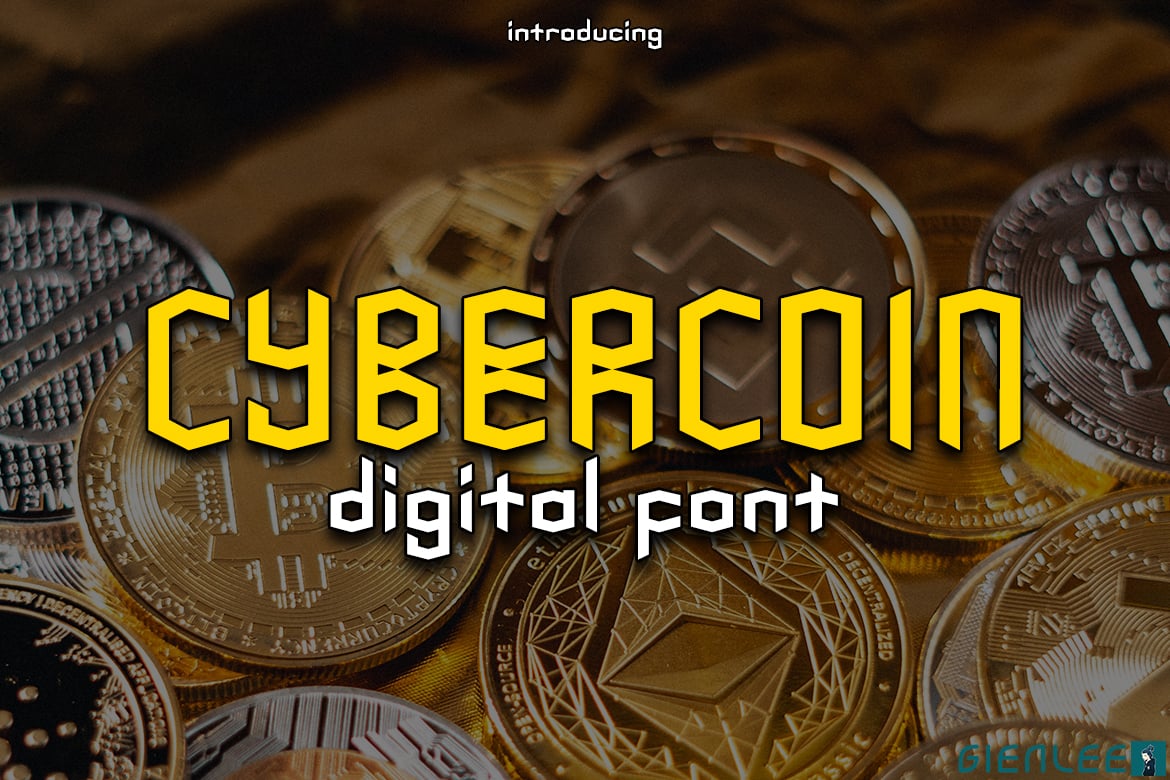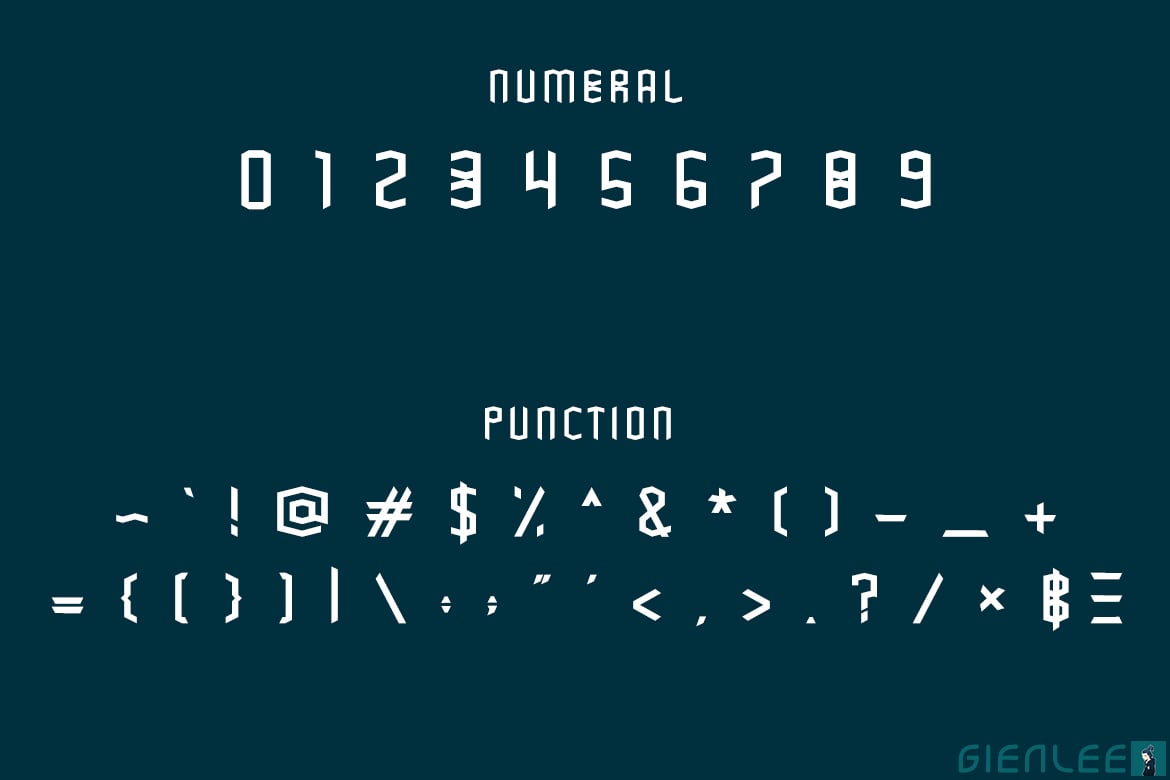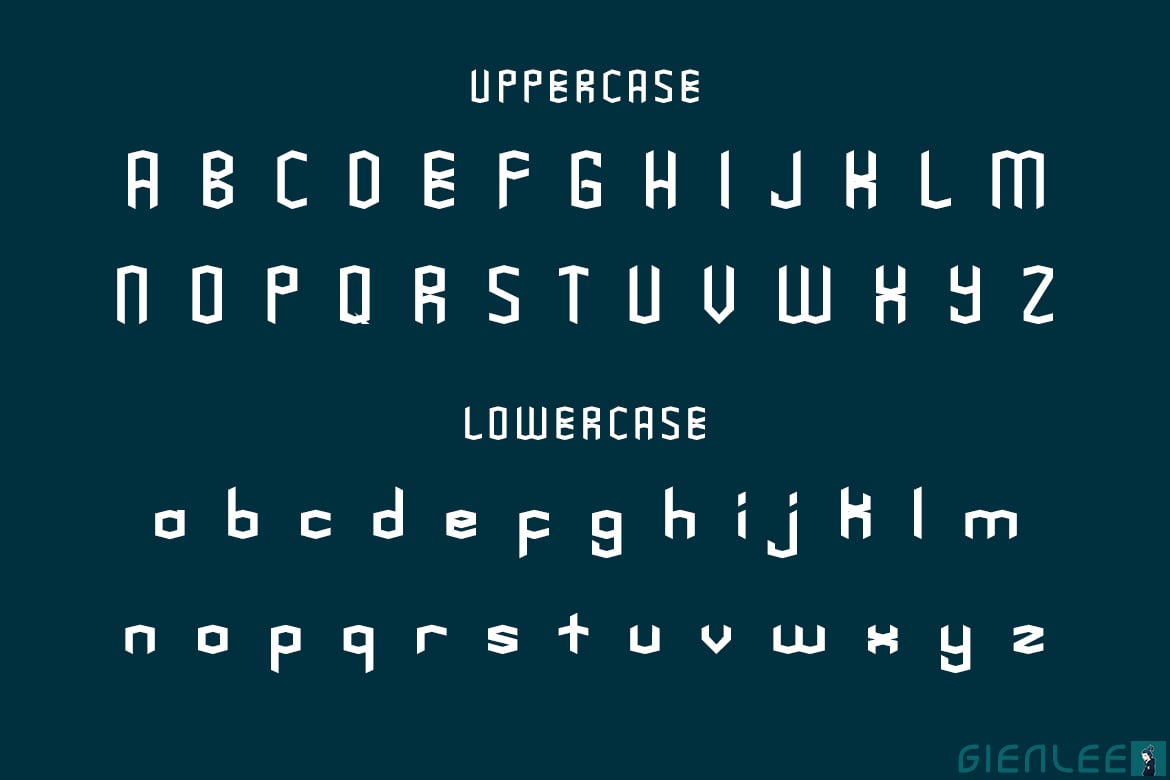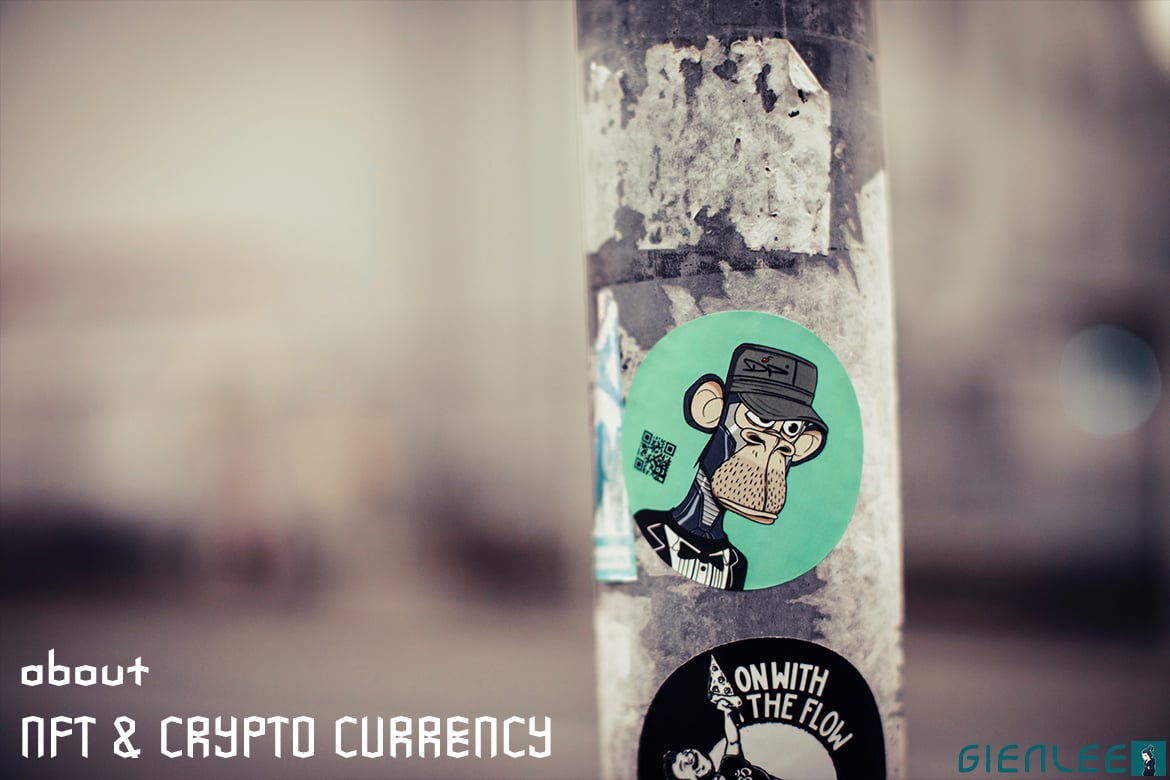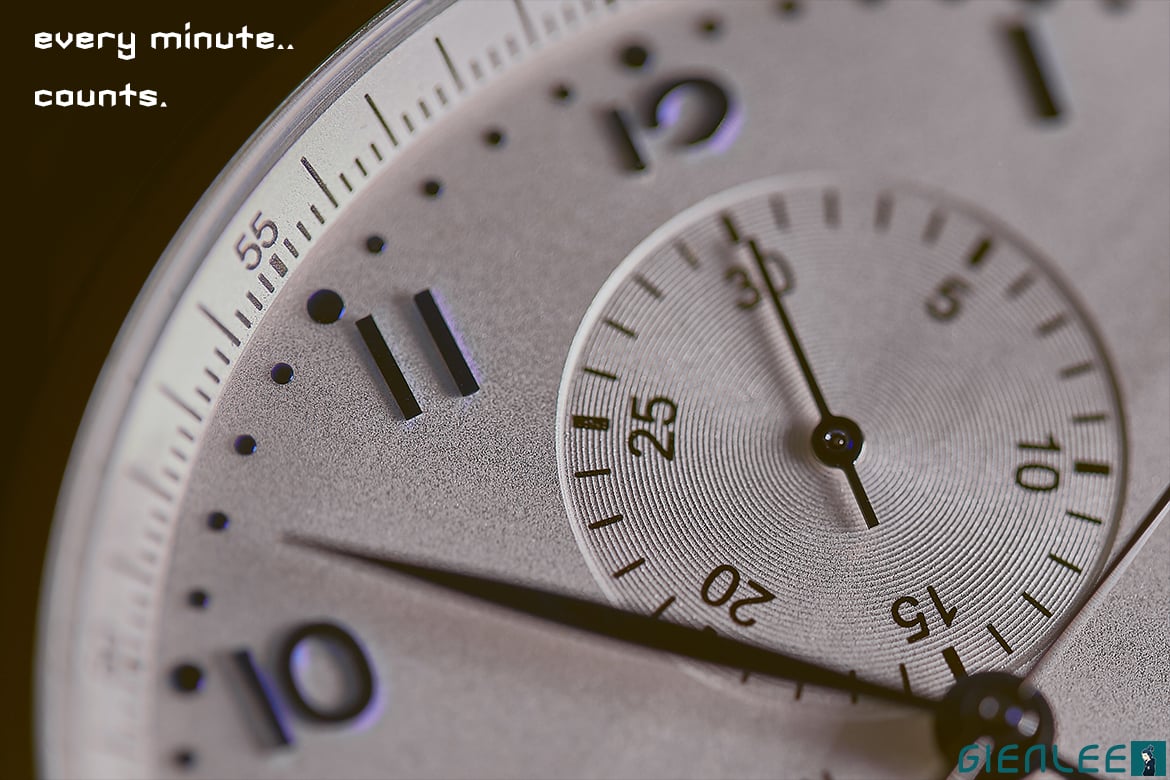
Cybercoin – Digital Font
Cybercoin is Digital Font. Commonly used for digital kind or workshop. It’s like cryptocurrency or timer kind of font.
- Standard Glyphs (Uppercase, Lowercase, Numeral & Punctions)